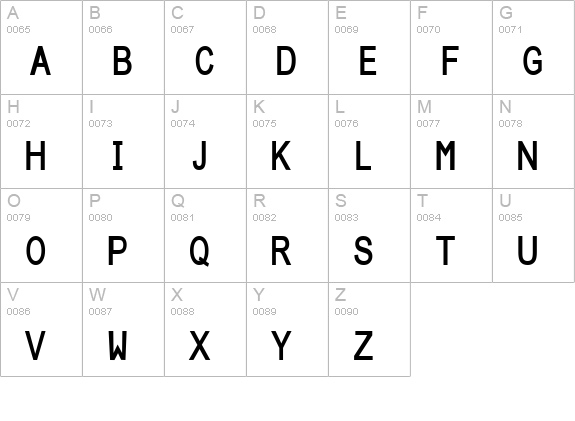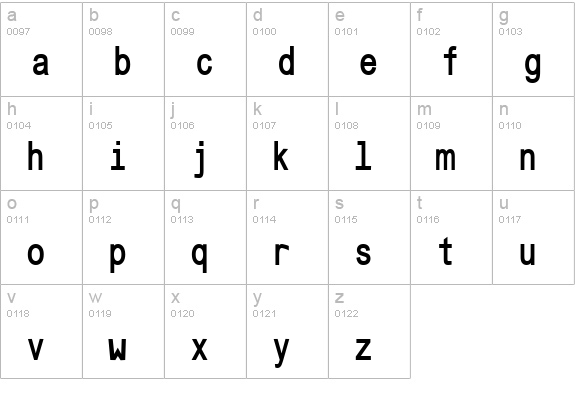
LFBOLD Font Details
Introducing LFBOLD font, a stunning typeface that exudes boldness and elegance in every letterform. This unique font is perfect for making a statement, capturing attention, and adding a touch of sophistication to any design project. With its strong and impactful letter shapes, LFBOLD font commands attention and leaves a lasting impression. But what sets LFBOLD font apart is not just its exceptional design, but also its availability as a free download. Yes, you heard it right! LFBOLD font is freely available for download exclusively at FontsMarket.com. This means that you can access this remarkable font without any cost, making it a valuable asset for designers, creatives, and enthusiasts alike. The versatility of LFBOLD font knows no bounds. Whether you're working on branding projects, advertising campaigns, website designs, or any other creative endeavor, this font will effortlessly elevate your work to new heights. Its clean lines and strong presence make it highly legible and suitable for a wide range of applications. With LFBOLD font, you can unleash your creativity and bring your design visions to life. Its timeless appeal and modern aesthetic make it an excellent choice for both print and digital projects. Whether you're designing a logo, crafting a poster, or creating eye-catching social media graphics, LFBOLD font will add a touch of sophistication and professionalism to your work. So why wait? Head over to FontsMarket.com and download LFBOLD font today. Join the community of designers who have discovered the power of this exceptional typeface and unlock its full potential in your next project. Embrace the freedom to create with LFBOLD font and watch as your designs captivate and inspire.